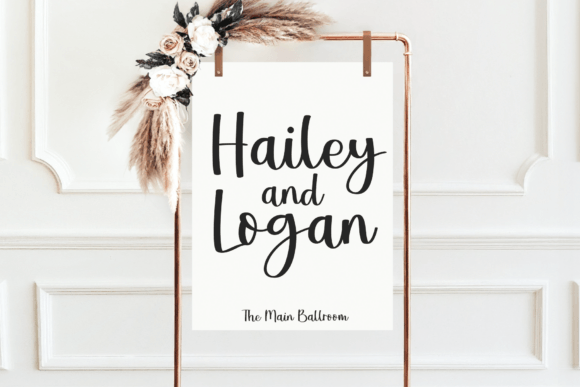
Country Farmhouse Font
Country Farmhouse is a charming script font in a rustic farmhouse style! This font is sure to bring a touch of beauty to all of your craft projects. This is a bold script making it perfect for both cutting and printing. Country Farmhouse is a font that you will find yourself using over and over again!